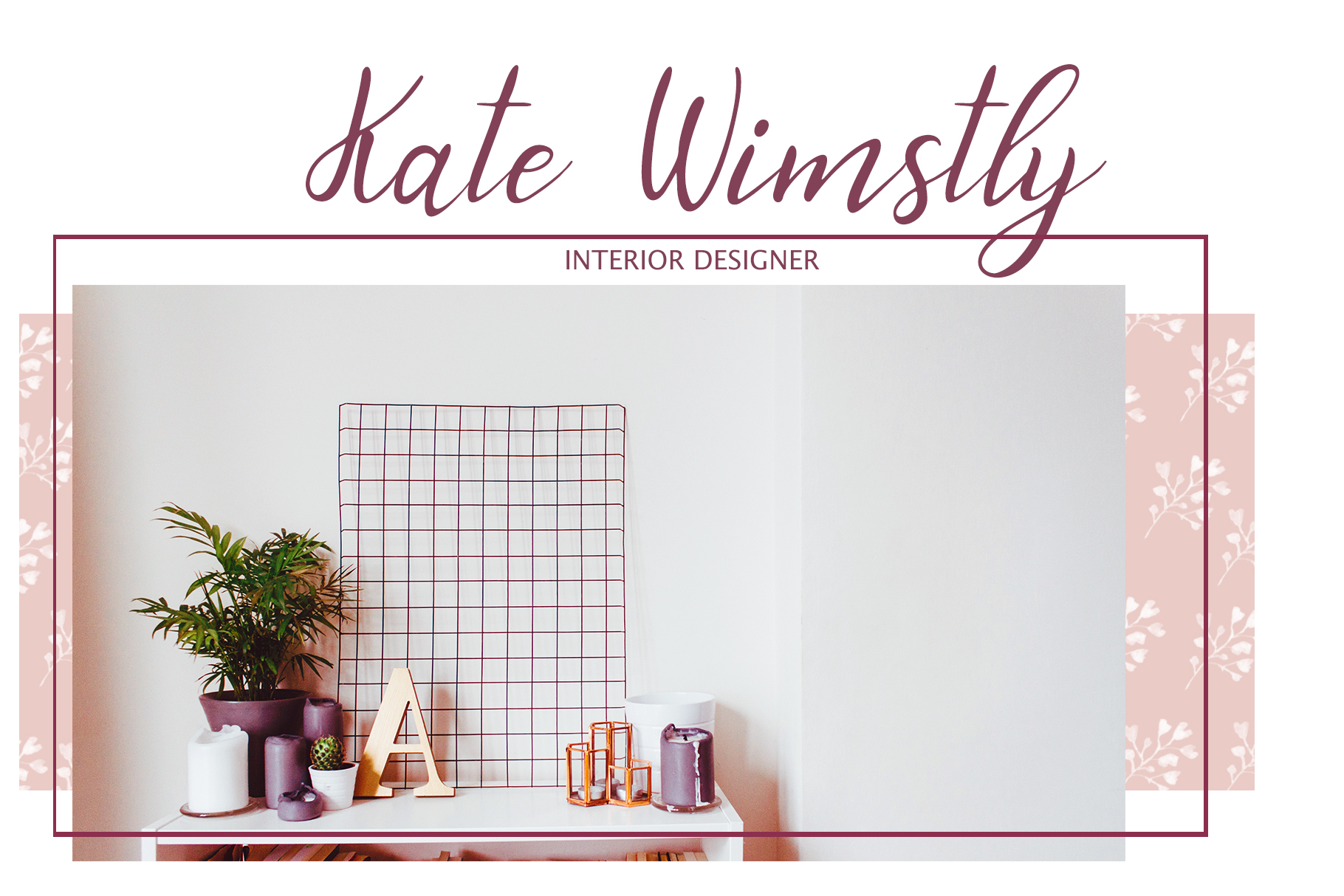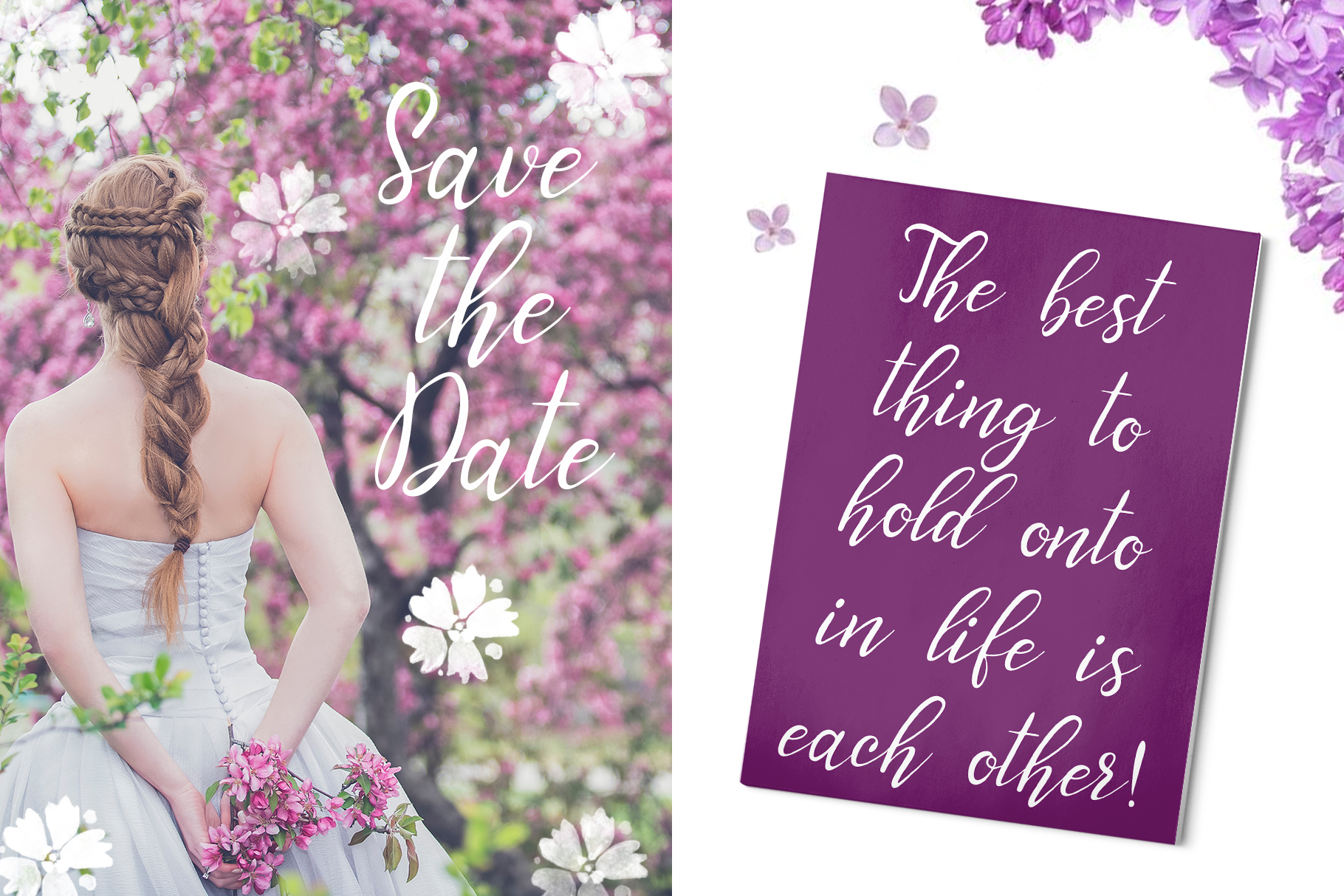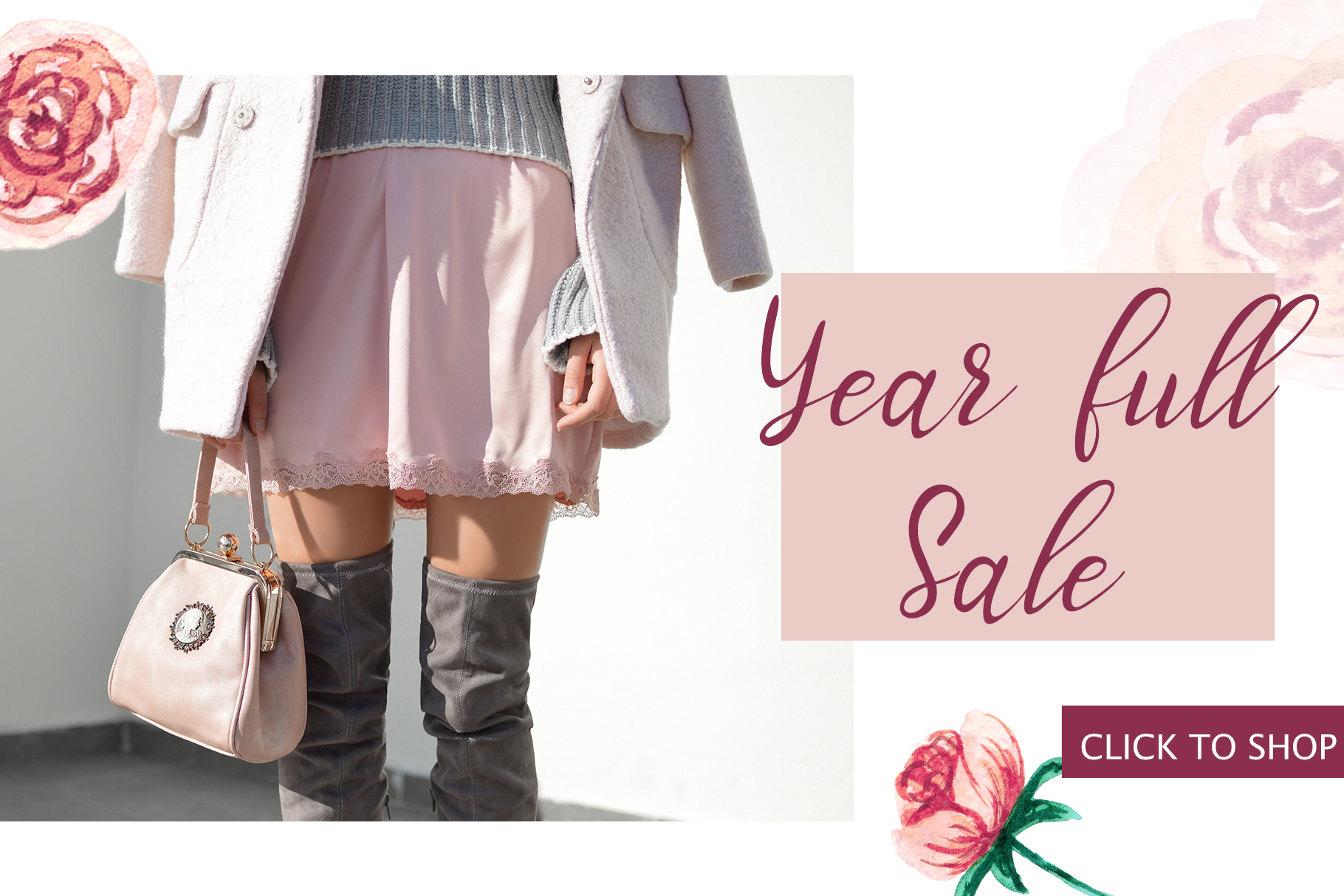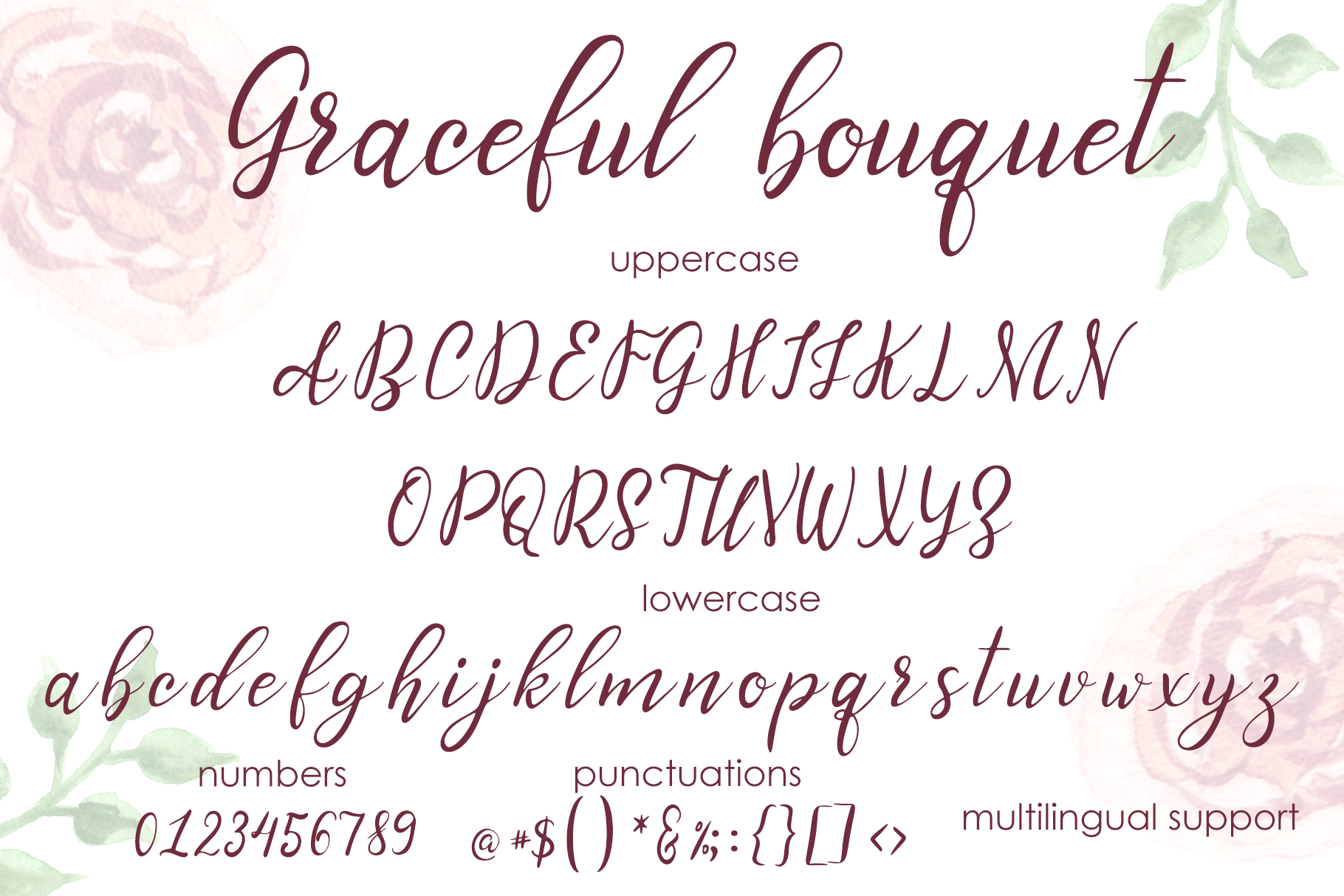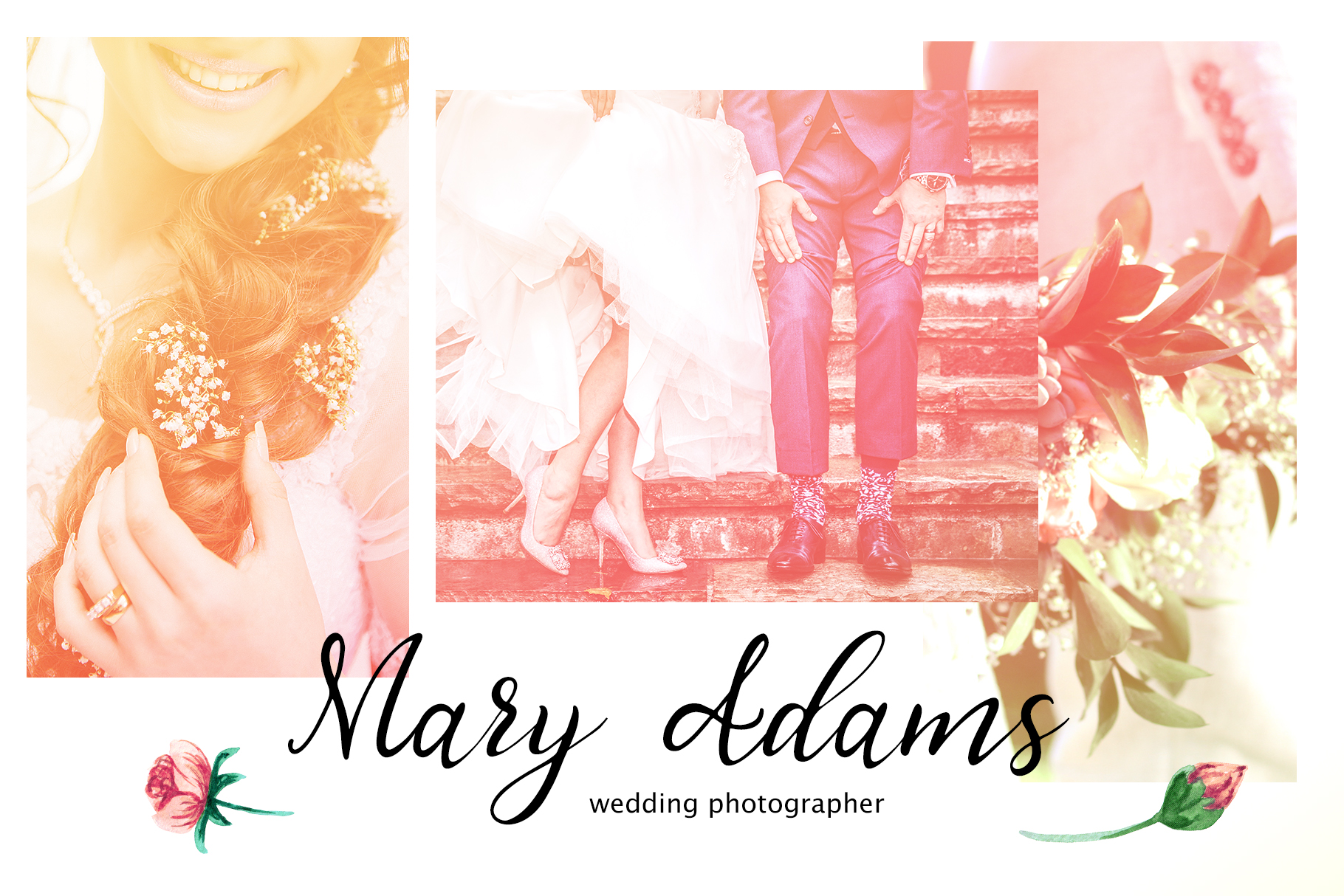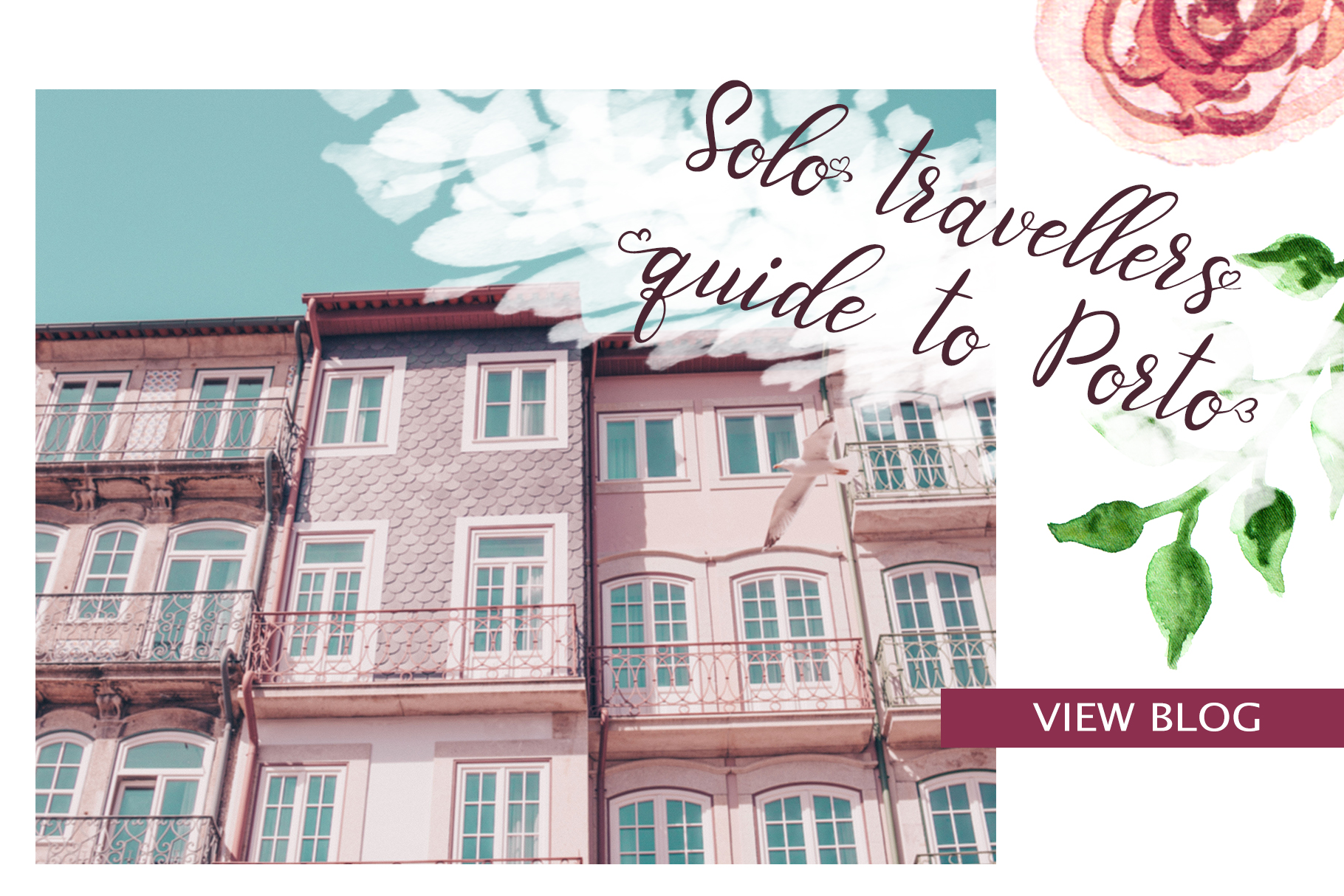
Introducing the Elegant Graceful Bouquet Font: Elevate Your Designs with Romance and Sophistication
In the world of typography, few fonts capture the essence of romance and femininity as beautifully as the Graceful Bouquet Font. This stunning script is designed to make your designs stand out, whether you’re working on a wedding invitation, a branding project, or any creative endeavor that calls for a touch of elegance. With its complete set of letters, characters, and stylistic alternates, Graceful Bouquet offers the versatility and charm needed to bring your vision to life.
Aesthetic Appeal: A Romantic and Feminine Script
Graceful Bouquet is more than just a font; it’s an expression of style and sophistication. Its romantic and feminine appeal makes it an ideal choice for projects that demand a delicate touch. The fluid curves and graceful lines of this script evoke a sense of nostalgia and beauty, perfect for designers and crafters looking to add a vintage or whimsical feel to their work.
Versatility at Its Best: Complete Set of Letters, Characters, and Stylistic Alternates
One of the standout features of the Graceful Bouquet Font is its comprehensive set of characters. This includes:
- A complete set of uppercase and lowercase letters
- Punctuation marks and numerals
- A range of stylistic alternates to provide variation and uniqueness
This extensive character set allows designers to experiment with different combinations, ensuring that each project is distinct and visually appealing. Whether you’re crafting a logo, a website header, or a social media graphic, Graceful Bouquet provides the flexibility to create something truly special.
Ideal for Display Uses: Making a Statement
While Graceful Bouquet’s beauty shines in display uses, it’s also versatile enough for various design applications. Here are some ideal uses for this elegant font:
- Wedding and Event Stationery: Create breathtaking wedding invitations, save-the-date cards, and event posters that set the tone for a memorable occasion.
- Branding and Packaging: Elevate your brand with a sophisticated and memorable logo or packaging design that speaks to your audience.
- Digital and Print Media: Use Graceful Bouquet in digital banners, social media graphics, and print advertisements to add a touch of class and allure.
- Web Design: Enhance your website’s aesthetic with elegant headings and titles that capture visitors’ attention and make your site stand out.
Tips for Using Graceful Bouquet Font Effectively
To make the most of this beautiful font, consider the following tips:
- Mix and Match: Experiment with different stylistic alternates to create visual interest and hierarchy in your designs.
- Pair Wisely: Combine Graceful Bouquet with complementary fonts for body text to ensure readability and balance.
- Play with Colors: Enhance the romantic feel of the font with soft, pastel colors or bold, contrasting hues to make your design pop.
| Font Name | Graceful Bouquet Font |
The Graceful Bouquet Font is a powerful tool for designers and crafters seeking to infuse their projects with elegance, romance, and femininity. Its comprehensive character set, stylistic alternates, and versatile nature make it suitable for a wide range of applications, from display uses to detailed design work. By incorporating Graceful Bouquet into your typography arsenal, you’ll be well on your way to creating stunning designs that capture hearts and imaginations.